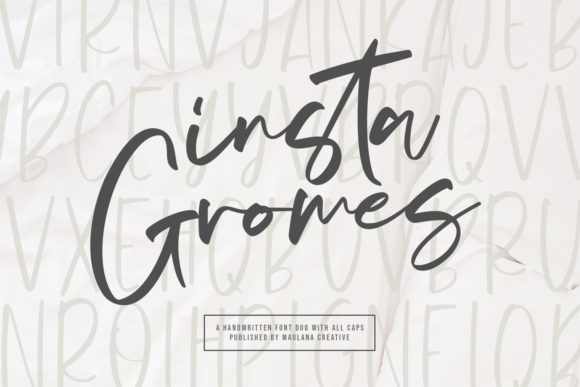
Indulge in the captivating elegance of Insta Gromes, a script font family that exudes a captivating charm. Meticulously crafted with the finest brush and pencil strokes, Insta Gromes transports you to a realm of sophistication and creativity.
Designed with an unparalleled feel of authenticity, Insta Gromes carries the essence of handwritten artistry. Its subtle yet striking strokes dance gracefully across the page, evoking a sense of nostalgia and timeless appeal.
With Insta Gromes, the possibilities are endless. Whether you're crafting enchanting invitations, designing captivating social media posts, or adding a touch of allure to your branding, this versatile font is your steadfast companion.
Unleash the power of Insta Gromes and elevate your creations to new heights. Let its enchanting aura captivate your audience and leave an indelible mark on their hearts.